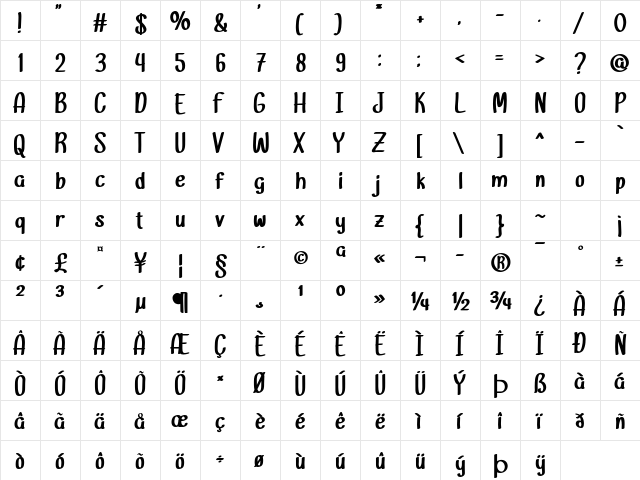
Lemongrab Regular Font Preview
Lemongrab Regular
Lemongrab Regular Font Details
Design Context for Lemongrab Typeface
Lemongrab is a composed and adaptable typeface that performs quietly and consistently across a wide range of design contexts.